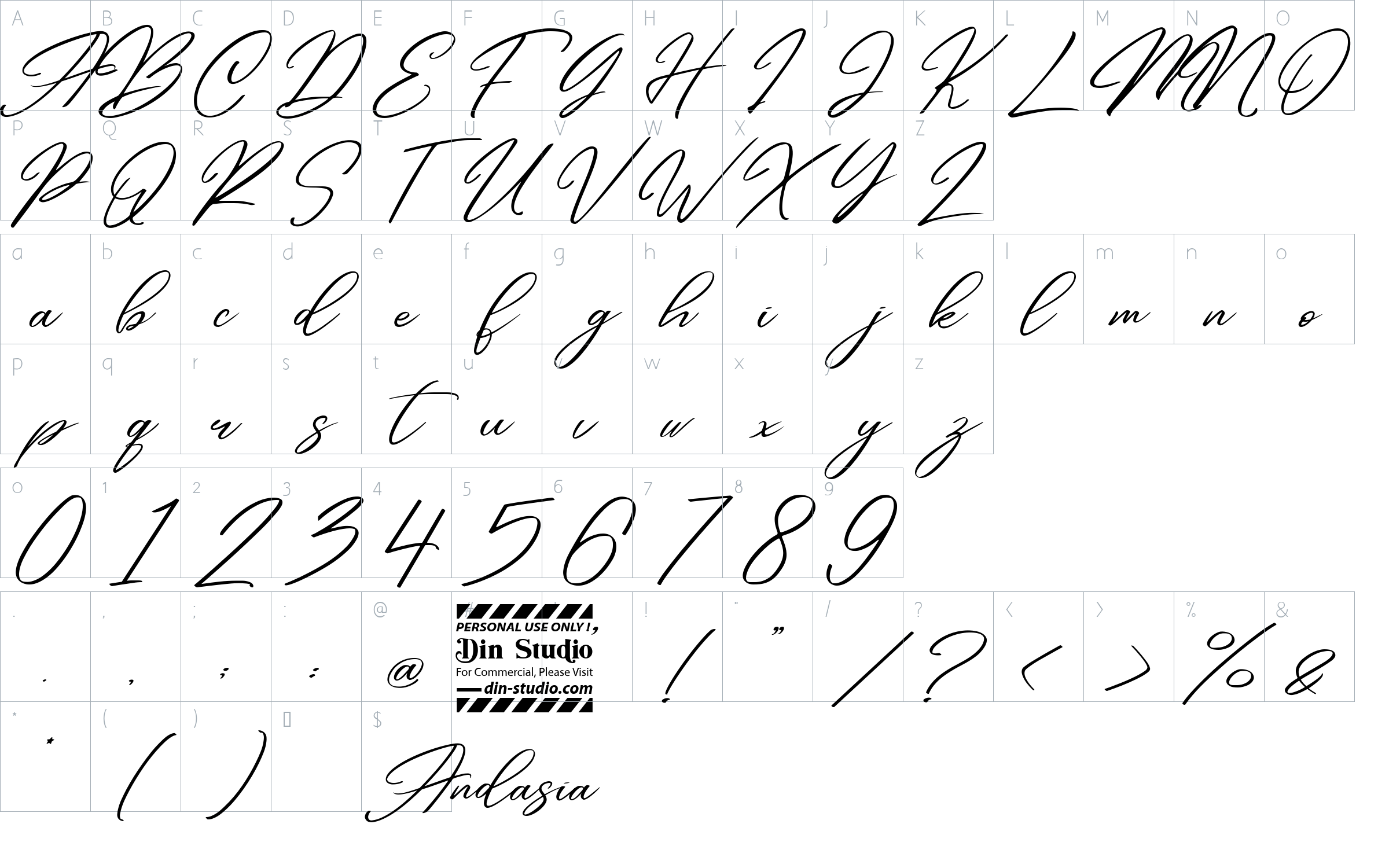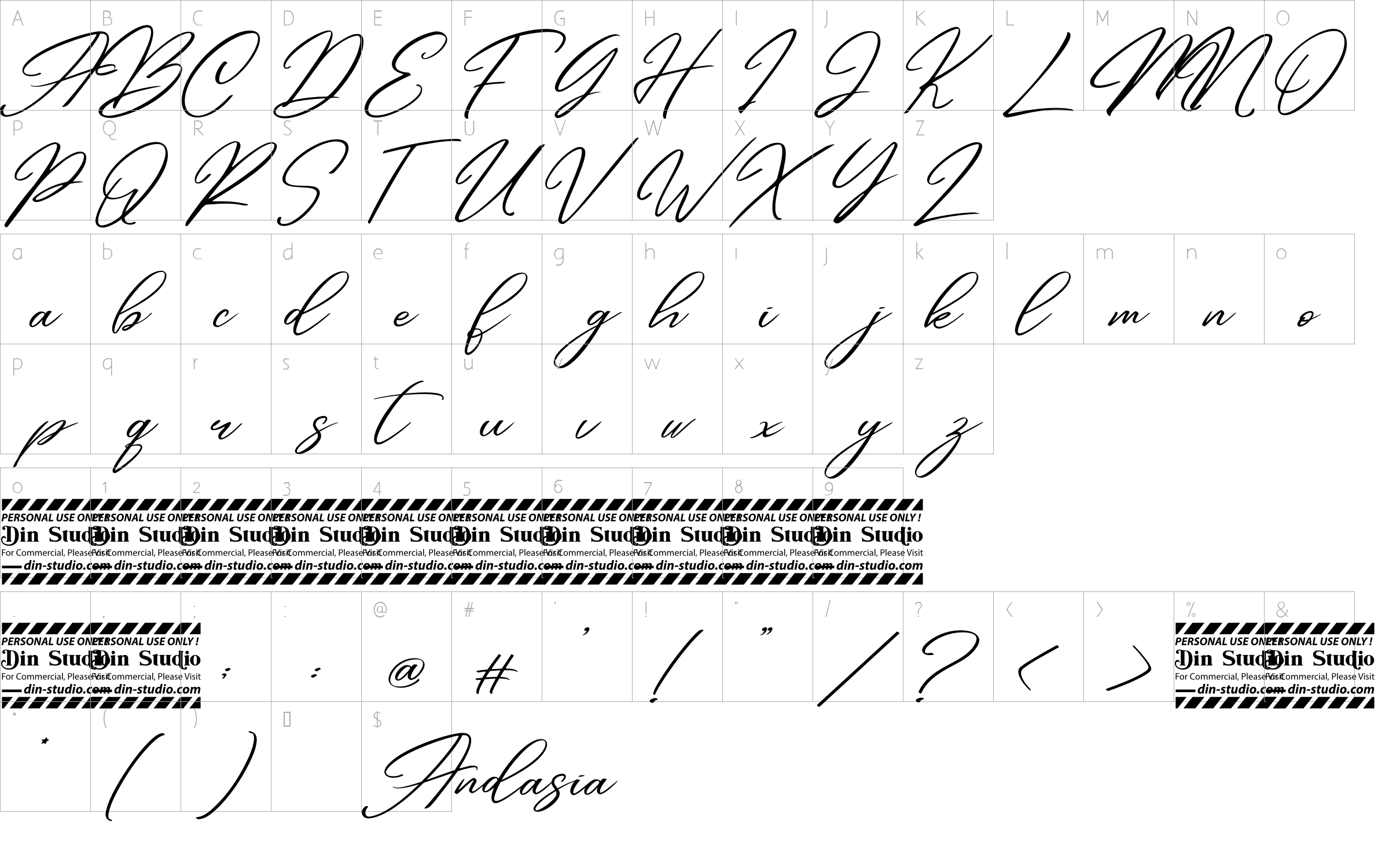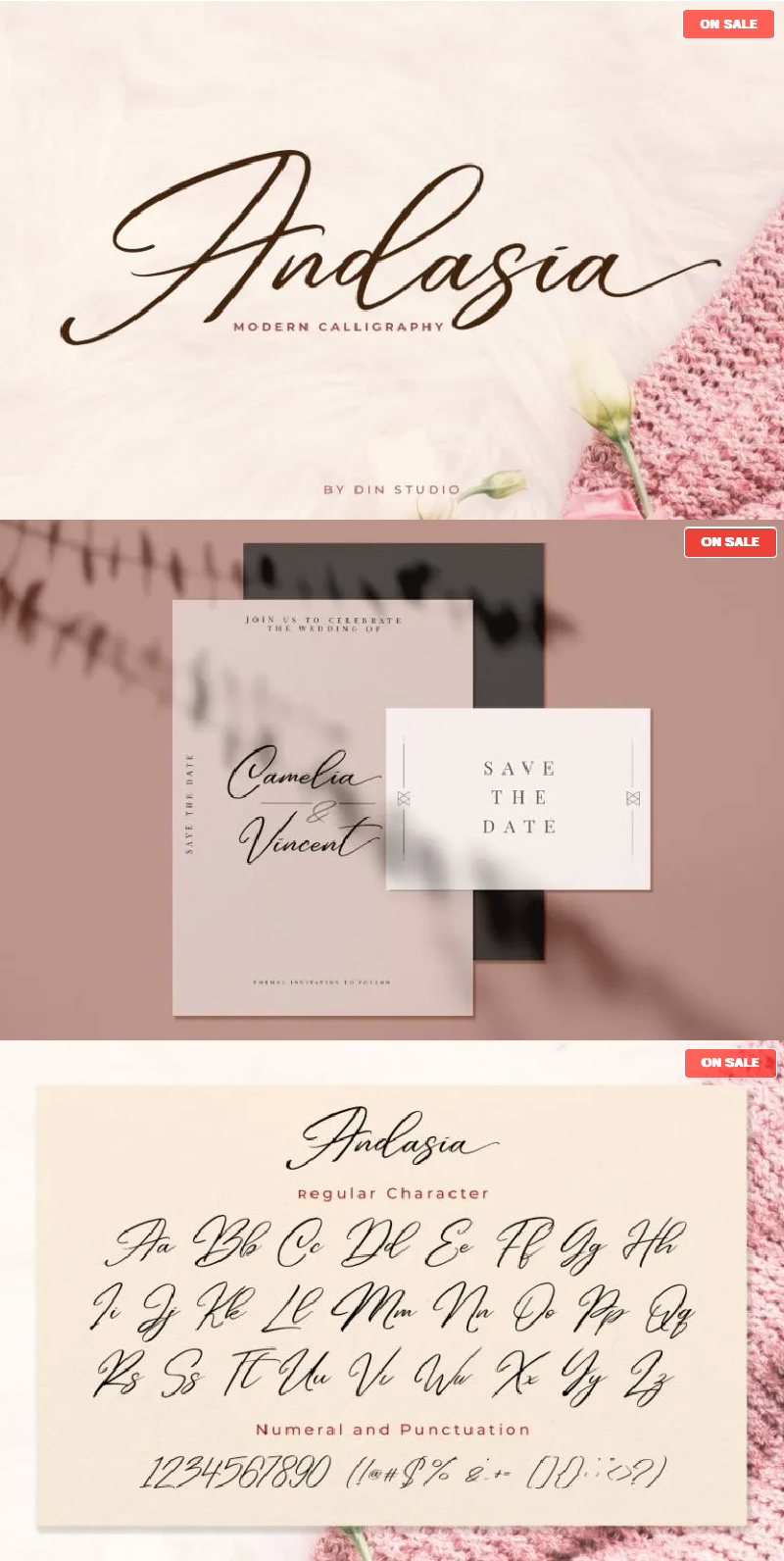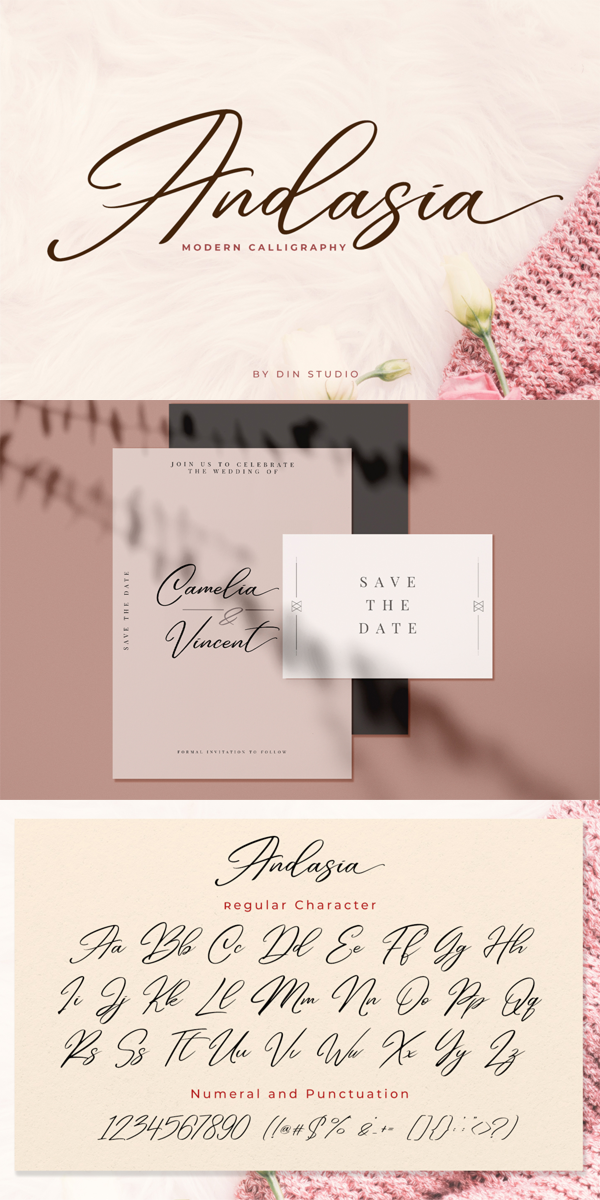
Andasia Font
About Andasia
It is a script of beautiful calligraphy with natural and handwritten styles. It brings a beautiful and modern typeface best used for weddings, brandings, logotypes, and quotes. See the previews above to get some inspiration on how you can use them. Hopefully, your project designs will be more beautiful with this Andasia Script. Happy designing!
- Beautiful Ligatures
- Swashes (a-z)